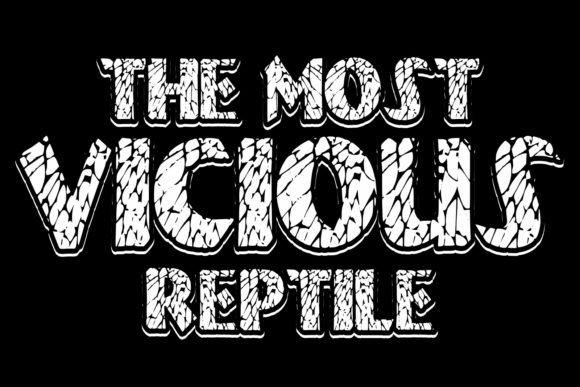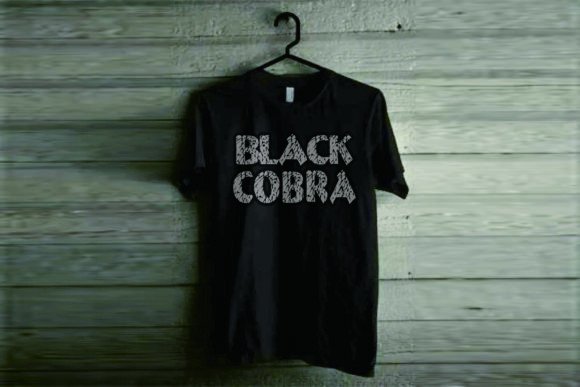
The Elusive Font: My Love Affair with Cobra
I still remember the design project that led me to discover the Cobra Font. I was working on a branding project for a trendy new cafe, and I was determined to find the perfect font to capture their edgy yet approachable vibe. Hours turned into days, and I was stuck in a font selection rut. That’s when I stumbled upon Cobra – a quirky, rough-around-the-edges display font that instantly resonated with me.
An Honest Review: The Good, the Bad, and the Quirky
What I Love About Cobra ✨
- Unique character: Cobra stands out in a sea of generic fonts ✅
- Rough, organic feel: adds a touch of personality to any design 🤘
- Versatility: works well in a variety of contexts, from bold headlines to creative branding 🔥
- Easy on the eyes: surprisingly legible, even at smaller sizes 🔍
Small Quirks and Limitations ⚠️
While Cobra is an amazing font, it’s not without its quirks. For instance:
- Limited use in body text: Cobra shines in display settings, but may not be the best choice for longer blocks of text 📝
- Some letters feel a bit cramped: kerning can be a bit off in certain combinations 🤔
A Practical Guide to Using Cobra
The Designer Behind Cobra: A Backstory
While the origins of Cobra are shrouded in mystery, it’s easy to imagine that its designer was inspired by the raw energy of street art and urban landscapes. Perhaps they sought to create a font that would capture the essence of rebellious creativity, while still being approachable and fun.
Q: What makes Cobra a display font?
A: Cobra’s unique character and rough texture make it perfect for display settings, such as headlines, titles, and branding.
Q: Can I use Cobra for body text?
A: While Cobra is surprisingly legible, it’s not the best choice for longer blocks of text. Its uniqueness shines in display settings.